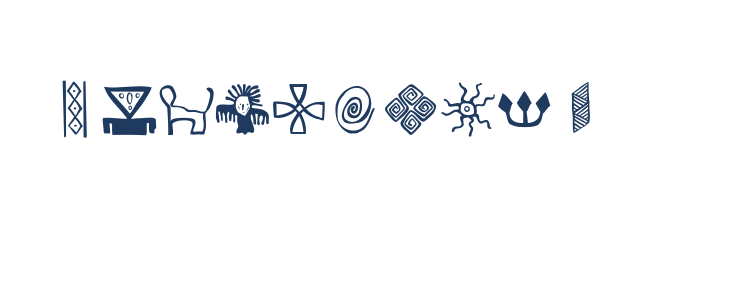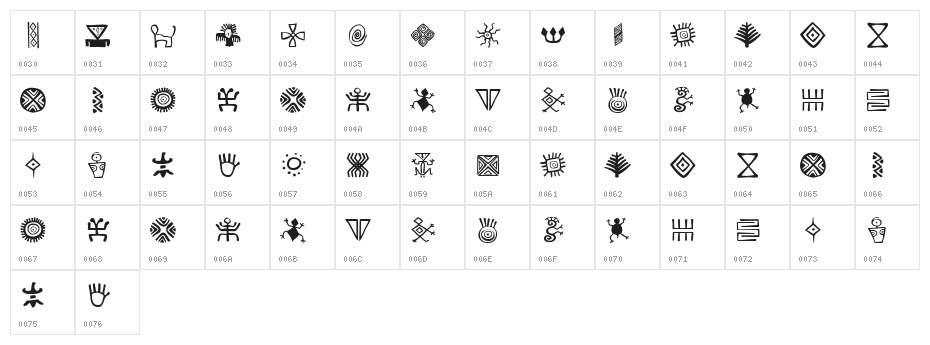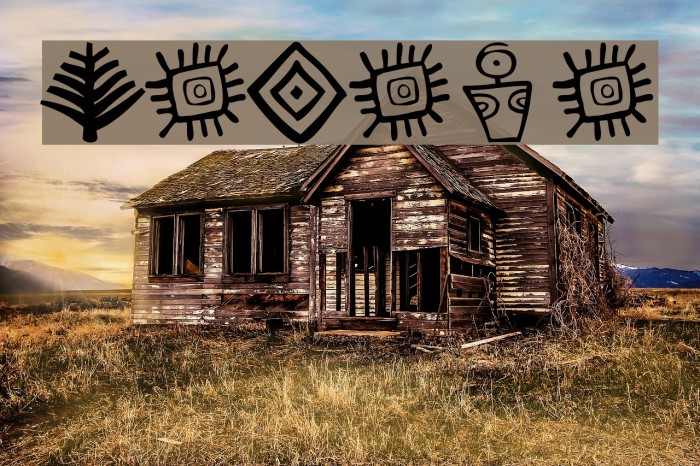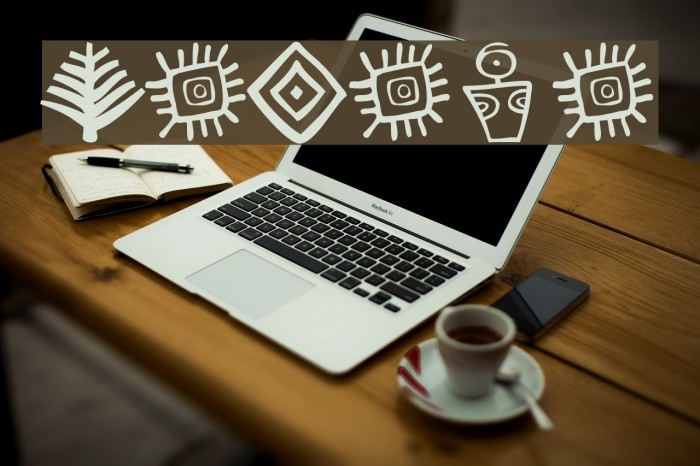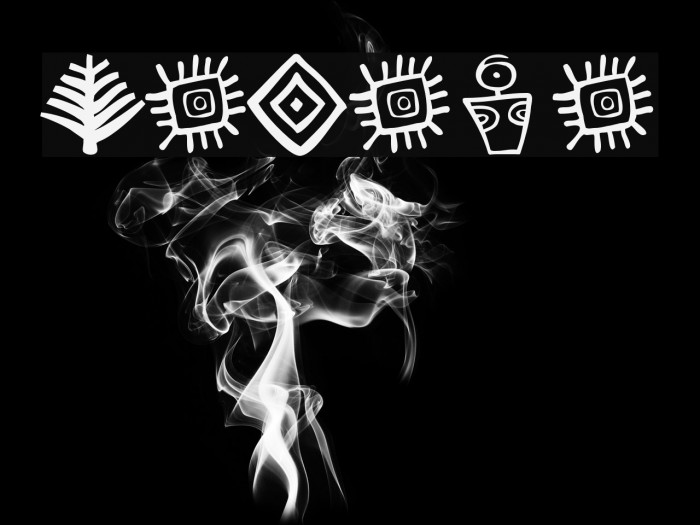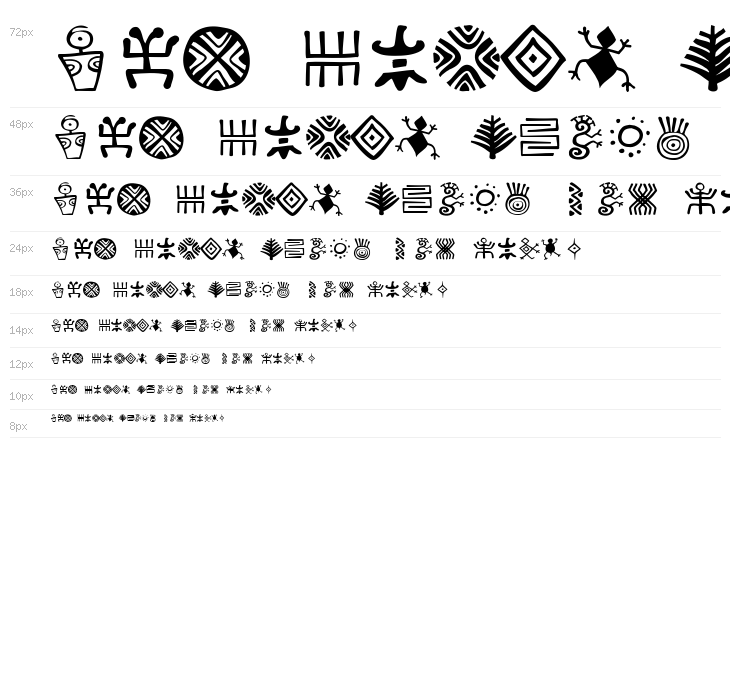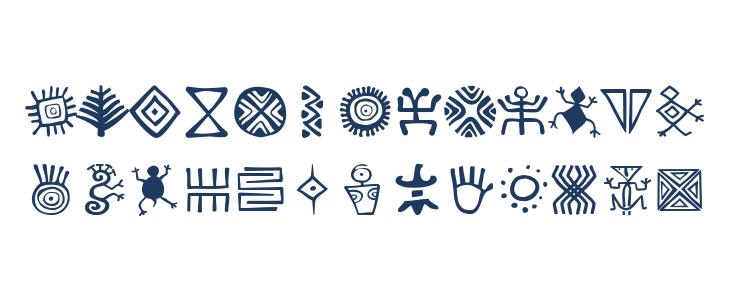
Bacata Font
Bacata Description
This collection features a series of intricate, symbolic glyphs inspired by indigenous art and ancient hieroglyphs. Each character is a unique representation, combining geometric shapes with organic forms, reminiscent of tribal motifs and cultural symbols. The designs are bold and striking, with a strong emphasis on symmetry and balance. The characters include a variety of abstract shapes, such as spirals, crosses, and stylized animals, each with a distinct personality and artistic flair. The overall aesthetic is both primitive and sophisticated, making it suitable for projects that require a touch of historical or cultural depth.
| Use Case | Logos, Artistic projects, Cultural themes |
| Proposed Projects | Ideal for cultural exhibitions, educational materials, artistic projects, and themed event branding. |